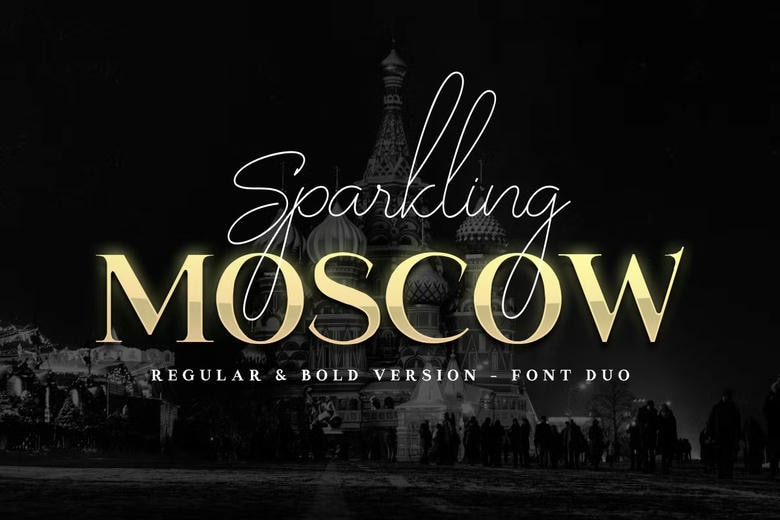
Sparkling Moscow Font Duo
Sparkling Moscow is an elegant font pair suitable for a brand, sign, and any purpose design. From our practice of being a graphic designer, many organizations that hire us always ask for a classy design. Thus, here we attempt to BTS and construct this font pair in order to make the idea to go out.
It is ideal for BRANDING and FOR ANY OTHER DESIGN you would want to be done. You will have elegant fonts, genuinely classy, and without doubt strikingly different from what the average Internet surfer will likely come across.